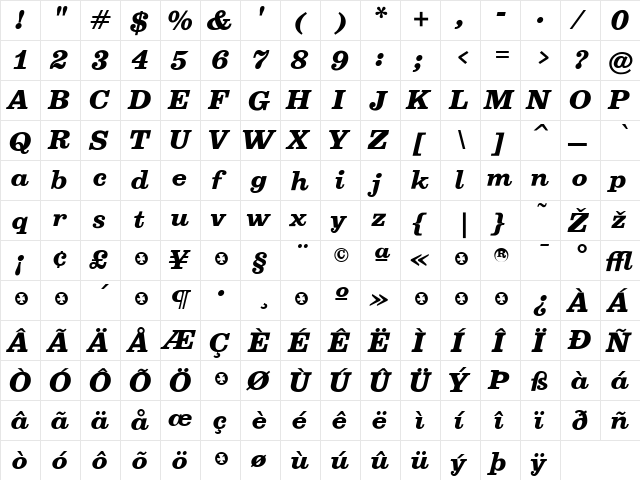
Belizio Italic
Design Context for Belizio Typeface
Belizio takes a measured approach to typography — its balanced proportions and neutral character make it a reliable workhorse for both digital and print work. Its italic angle brings a sense of urgency and motion to the letterforms.
Pro Tip: Try Belizio for annotation and caption copy alongside an upright companion — the contrast in angle creates a dynamic but ordered typographic system.